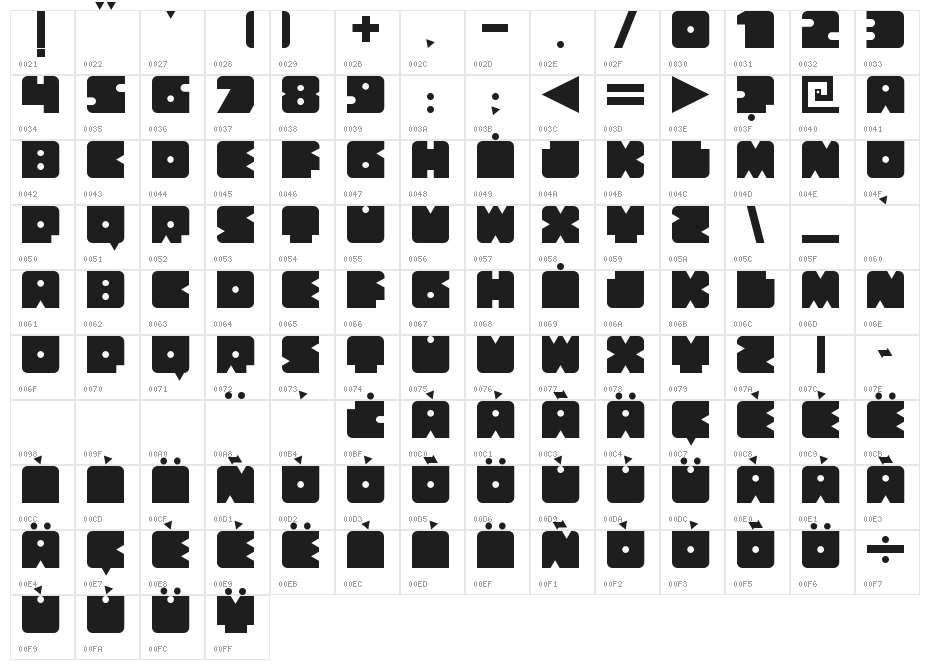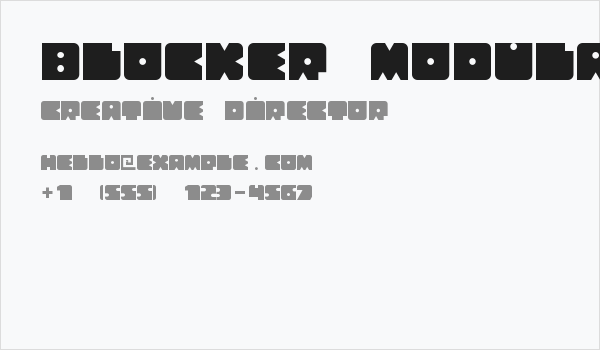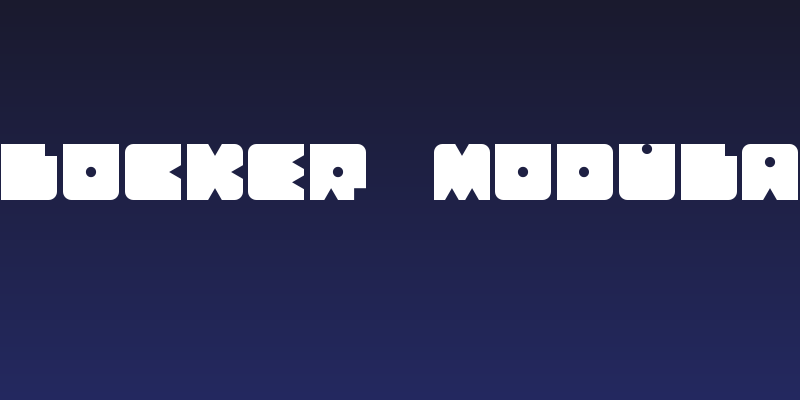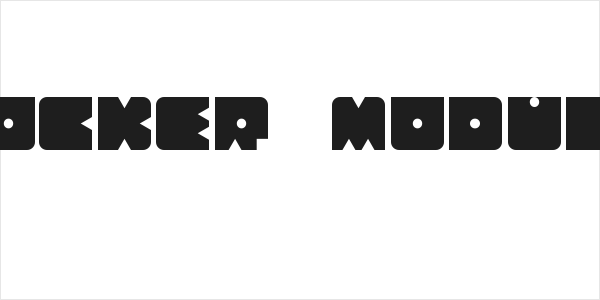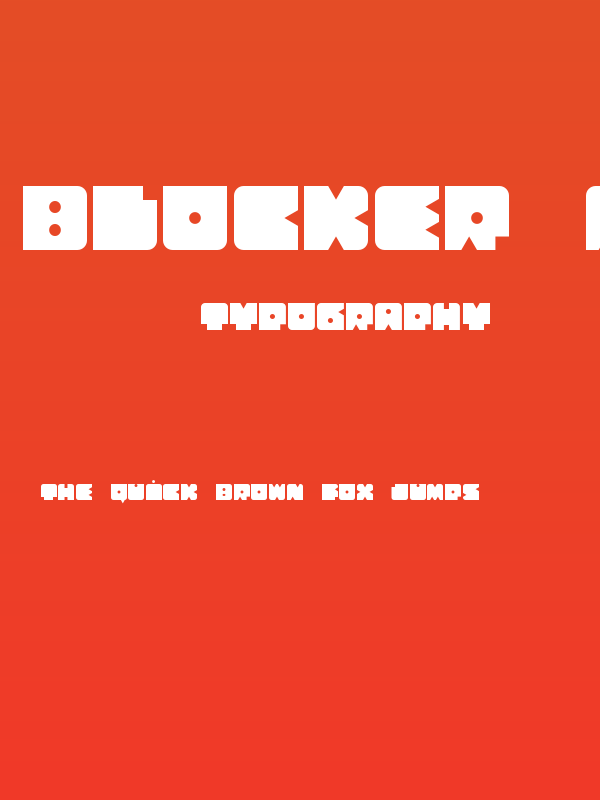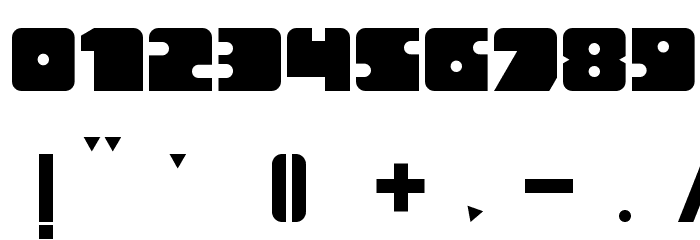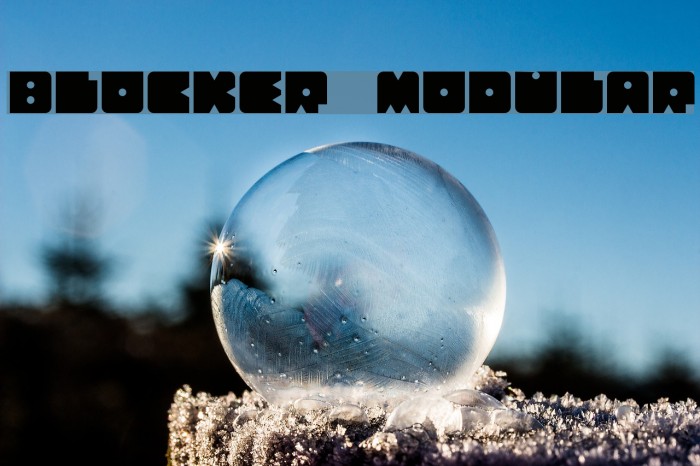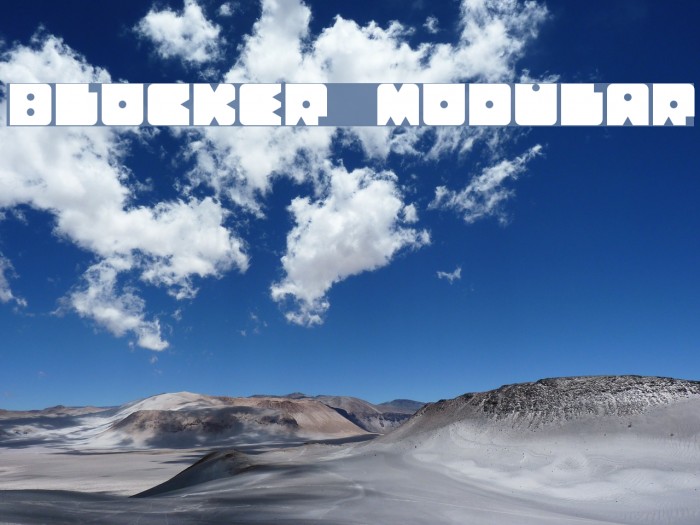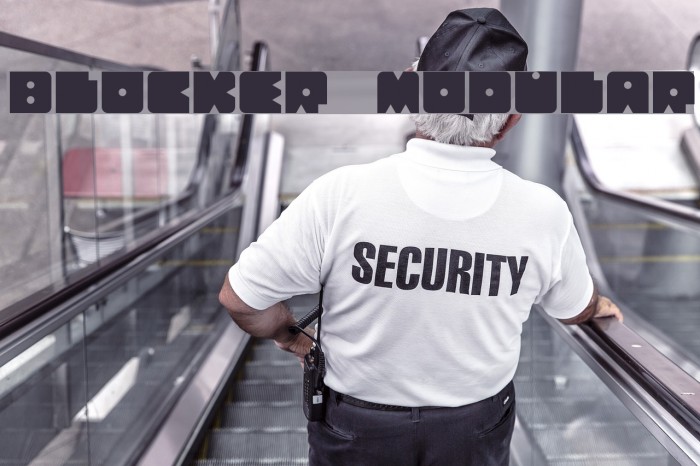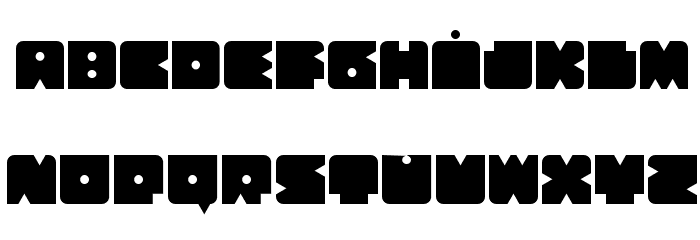
Blocker Modular Font
Blocker Modular Description
This font features a bold, geometric design with a modular structure. Each character is constructed with solid, block-like shapes, creating a strong visual impact. The letters are uniformly wide, with consistent height and width, giving the font a cohesive and structured appearance. The use of sharp angles and straight lines adds a modern, futuristic feel. The font includes both uppercase and lowercase letters, numerals, and a selection of special characters. Its unique style makes it ideal for attention-grabbing headlines and logos.
| Proposed Projects | Ideal for branding, logo design, posters, and any project requiring a modern, impactful typeface. |